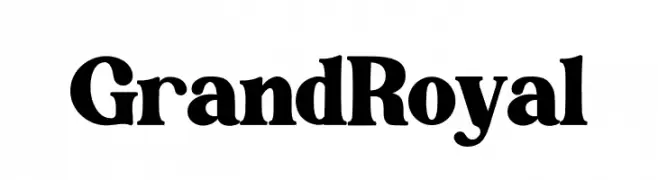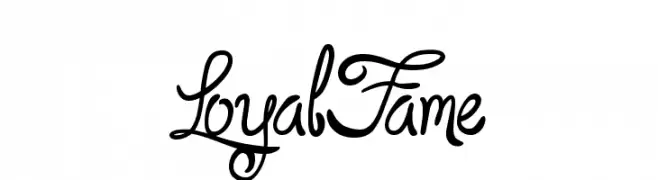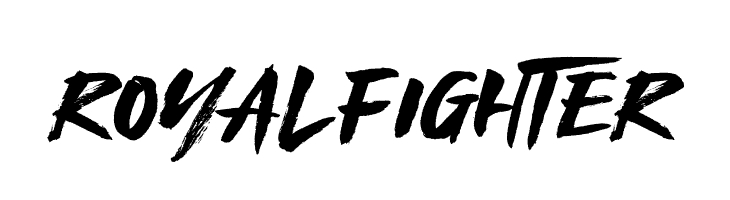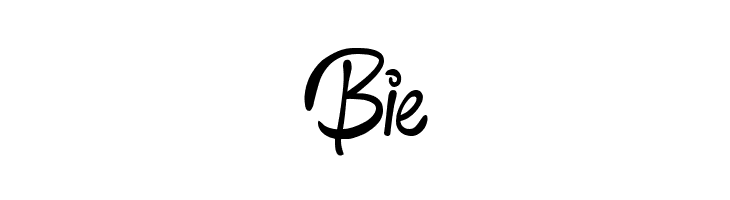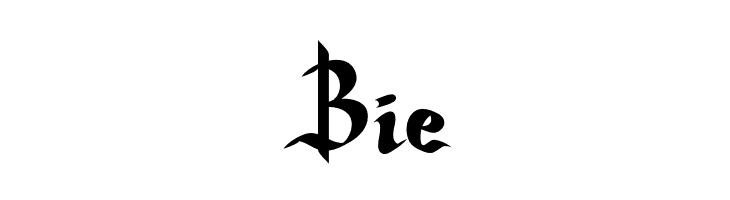
An ornate and decorative font with intricate swirls and flourishes.
A decorative, cursive script font with elegant loops and flourishes.
A bold, gothic-style font with sharp, angular strokes and medieval influences.
An ornate and decorative script font with flowing, intricate letterforms.
A bold, brushstroke font with a dynamic and textured appearance.
An elegant, bold italic serif font with a classic and sophisticated style.
A bold, serif font with a regal and authoritative style.
A smooth, flowing script font with a natural handwriting style.
A dynamic, brush-style handwritten font with expressive strokes.
A playful, bold, and handwritten-style font with thick, rounded strokes.